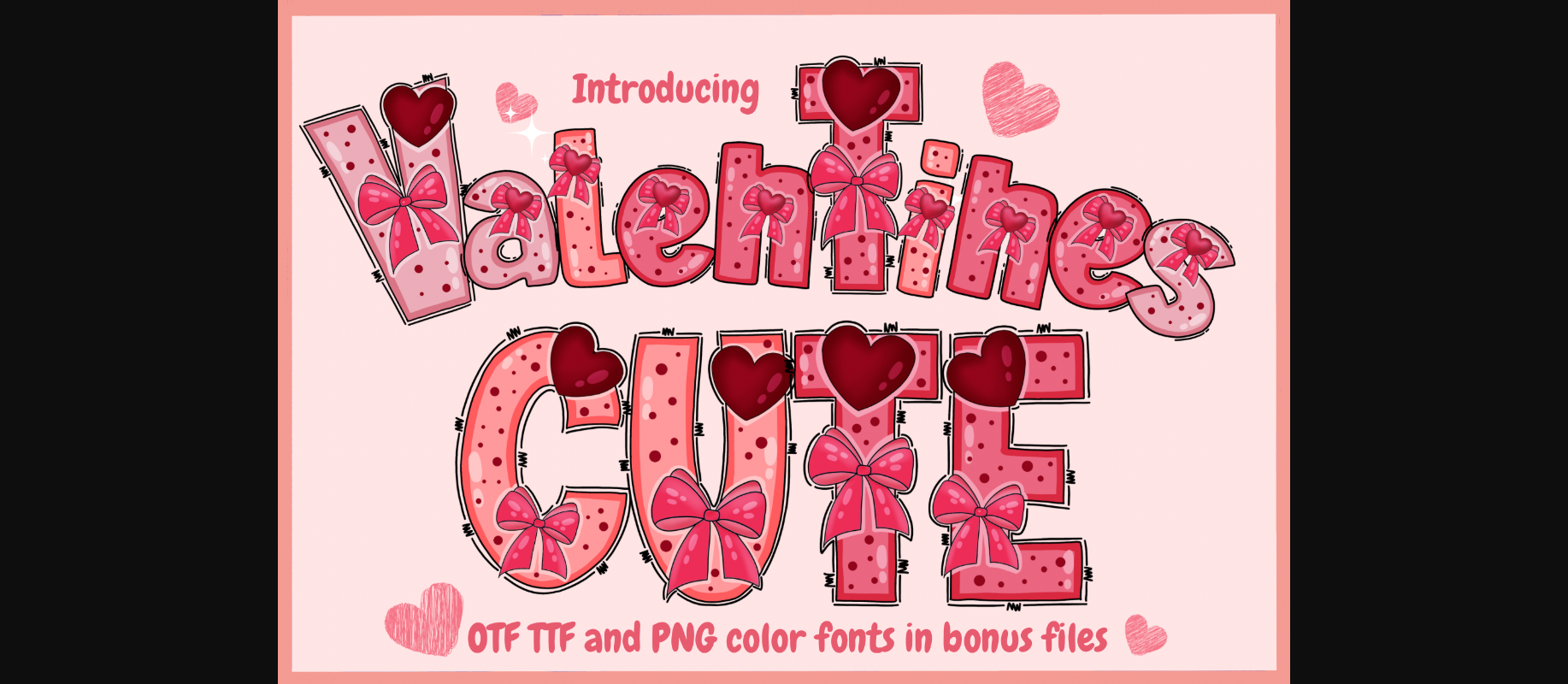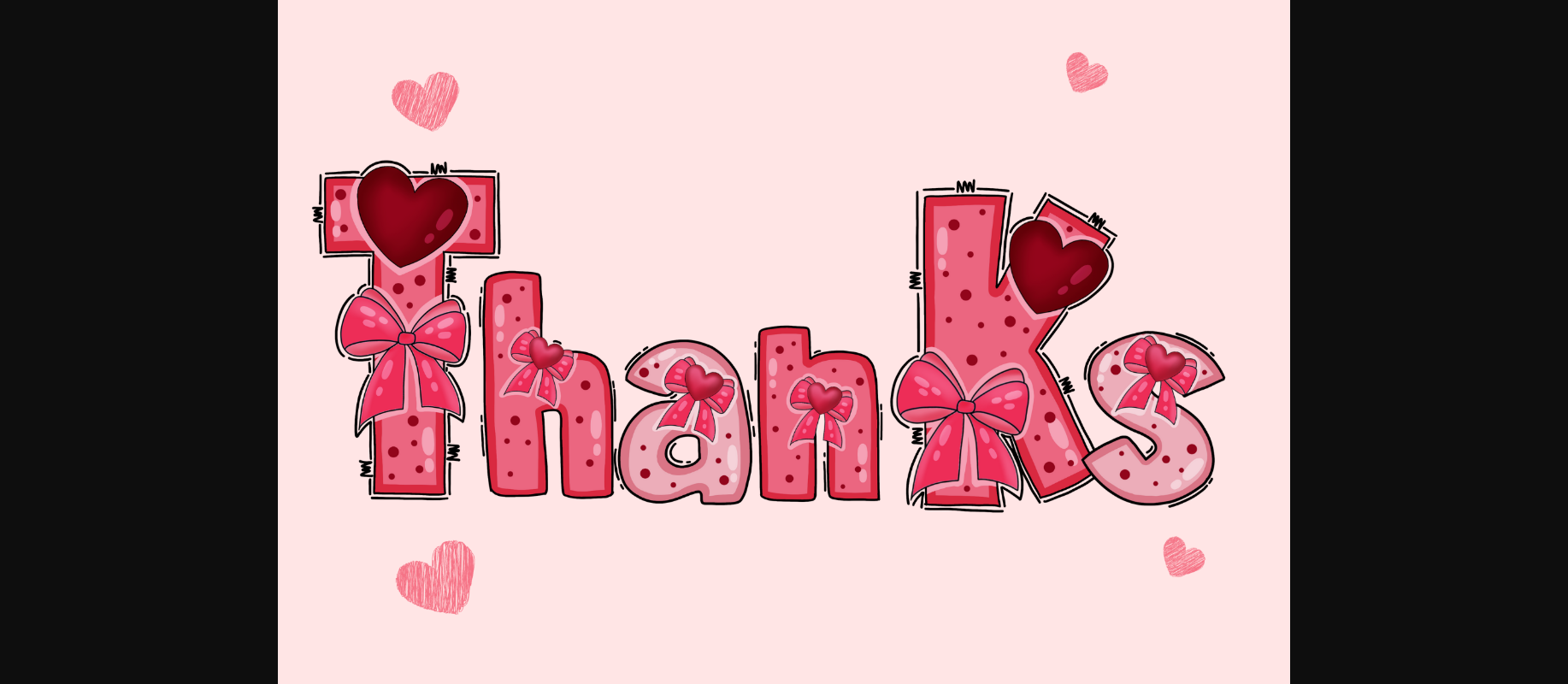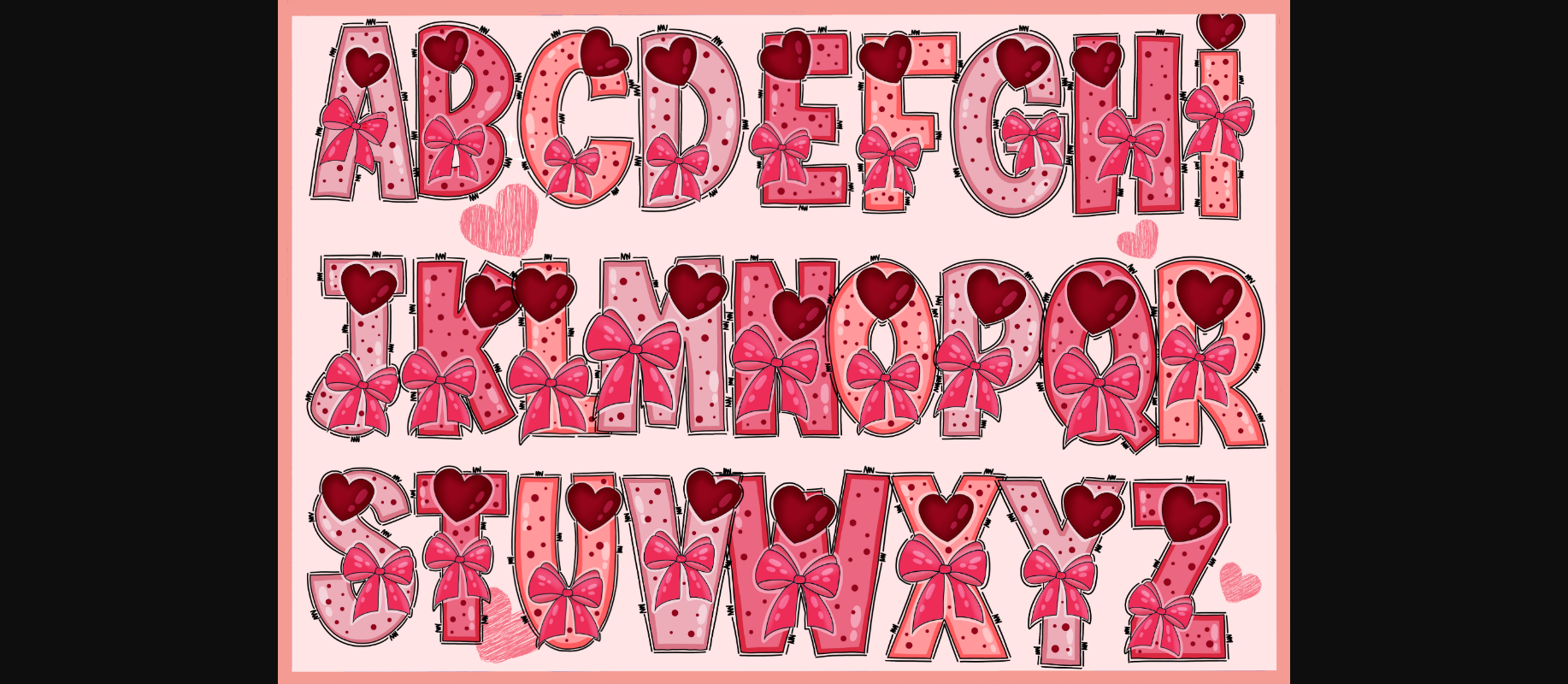
About Valentines Cute Font
Introducing “Valentines Cute,” a delightful decorative font adorned with charming hearts and ribbons intricately woven into each letter. This whimsical typeface is perfect for adding a touch of love and playfulness to your designs. Whether crafting Valentine’s Day cards, romantic invitations, or any heartfelt creations, Valentines Cute brings a sweet and endearing flair to your text. Embrace the charm of this font to convey love and joy in a uniquely stylish way.